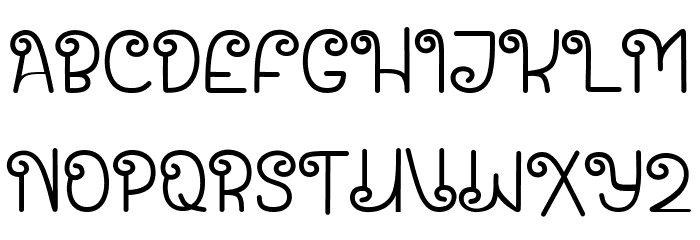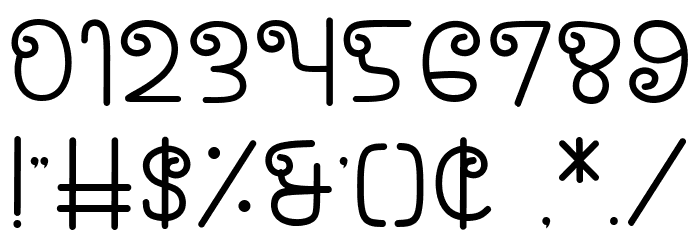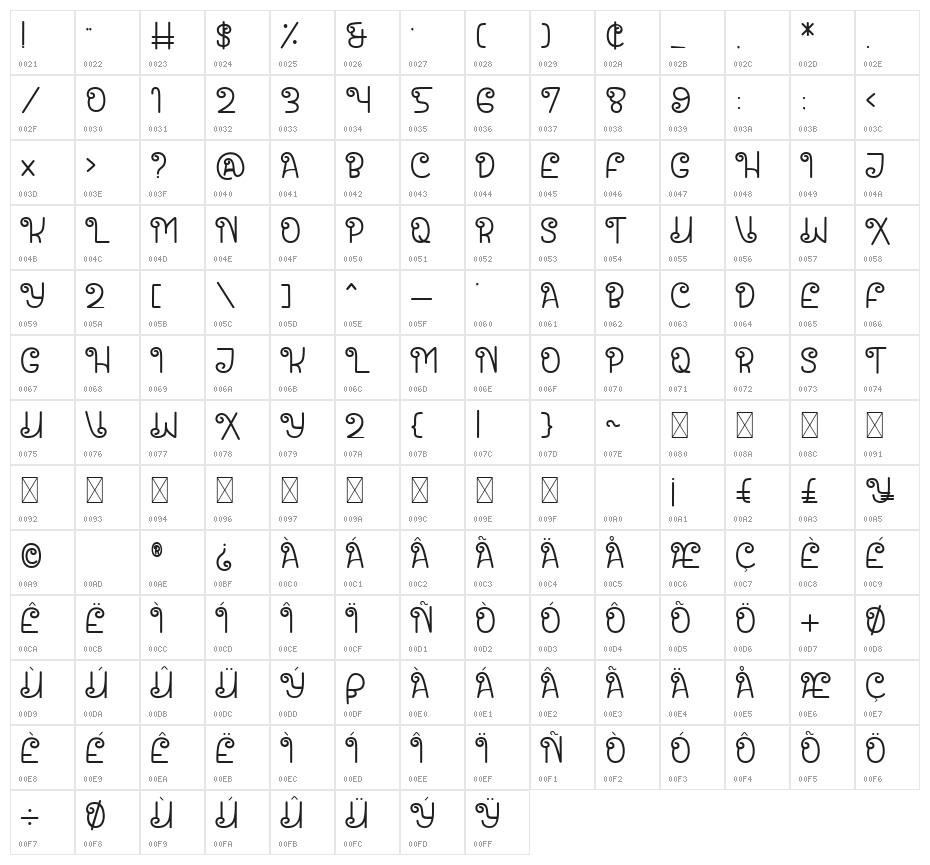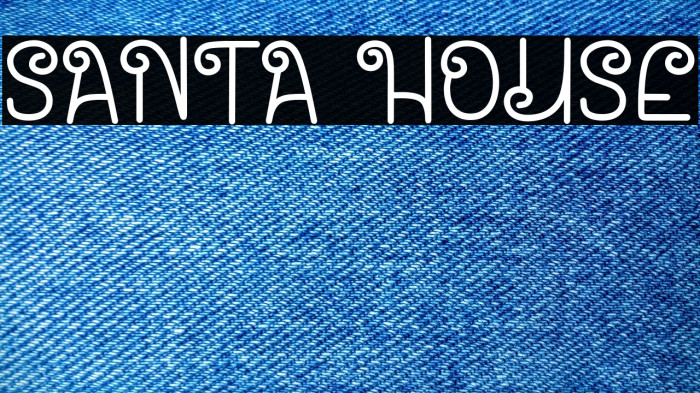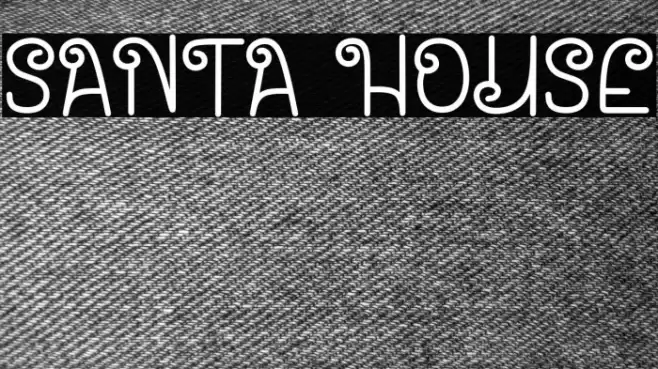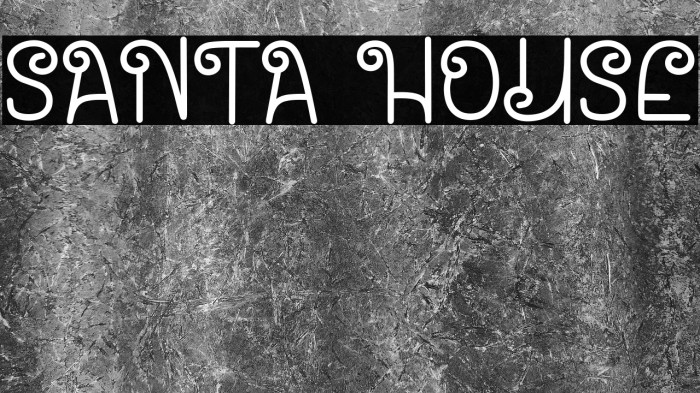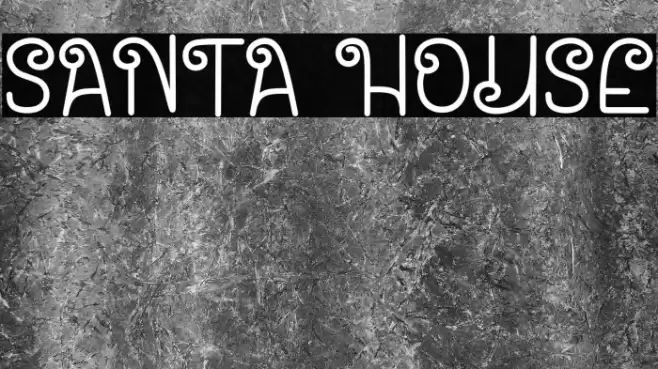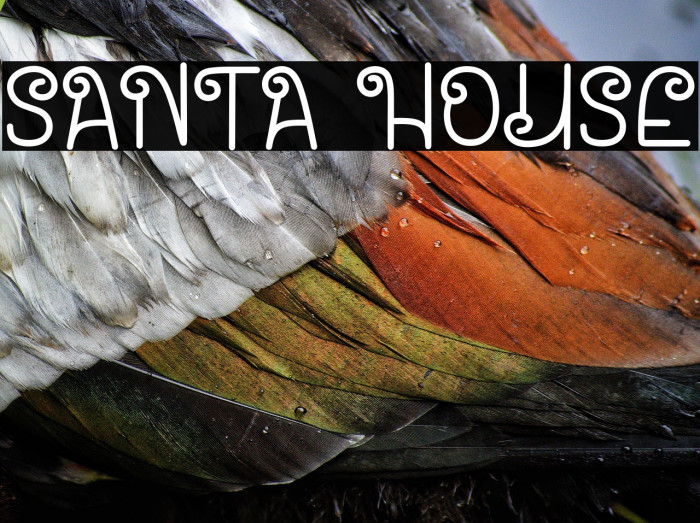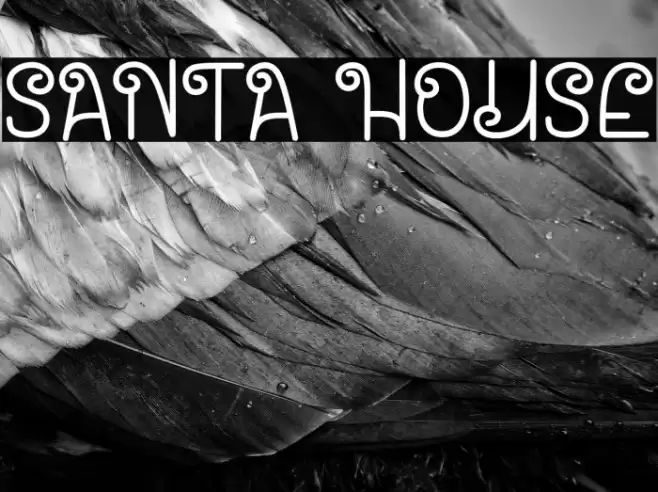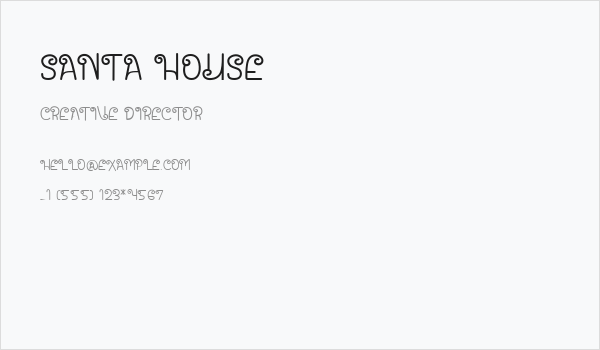
Santa House Font
This font features a whimsical and playful design, characterized by its unique curly and looped elements at the ends of each letter. The strokes are consistent in width, giving it a uniform appearance, while the decorative curls add a touch of elegance and fun. The uppercase and lowercase letters maintain a consistent style, with the lowercase letters being slightly smaller in size but equally decorative. The numerals and special characters follow the same design principles, ensuring a cohesive look across all characters. This font is perfect for projects that require a touch of creativity and playfulness.
A whimsical and playful font with decorative curls and loops.
- Proposed Projects: Ideal for holiday cards, children's book covers, playful branding, and festive invitations.
- Overall Style: Playful, Whimsical
- Use Case: Headlines, Logos, Decorative Text